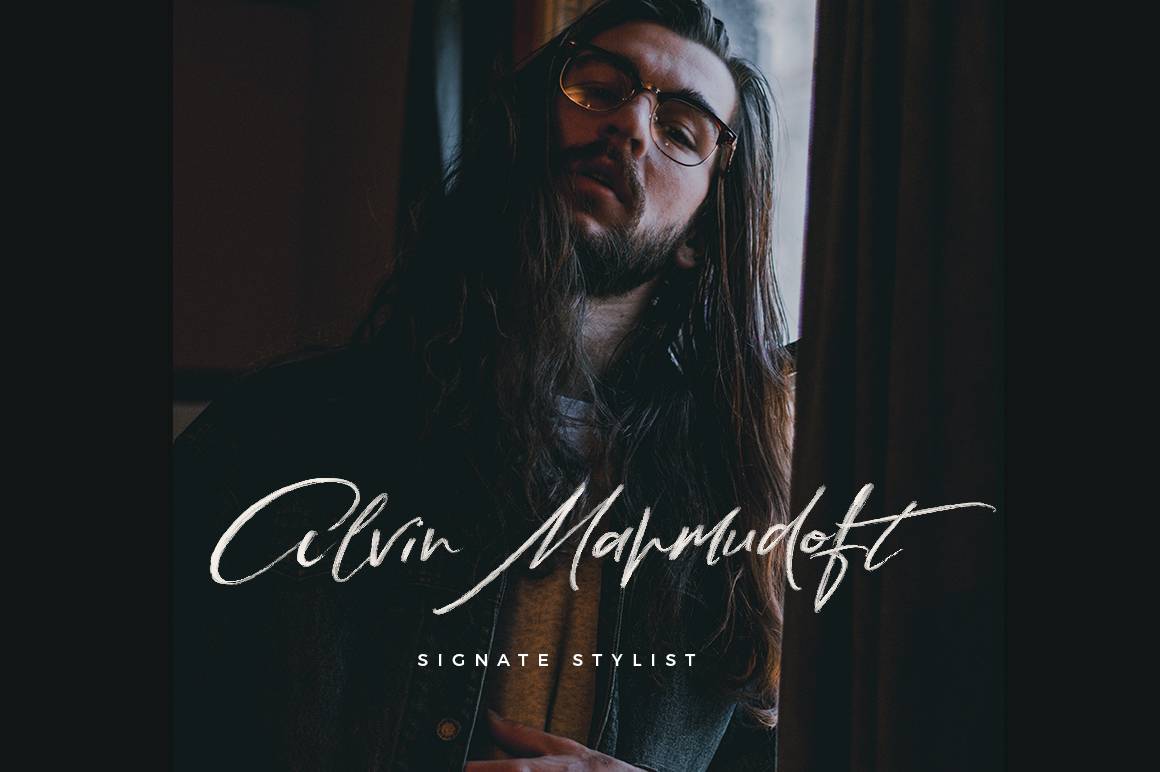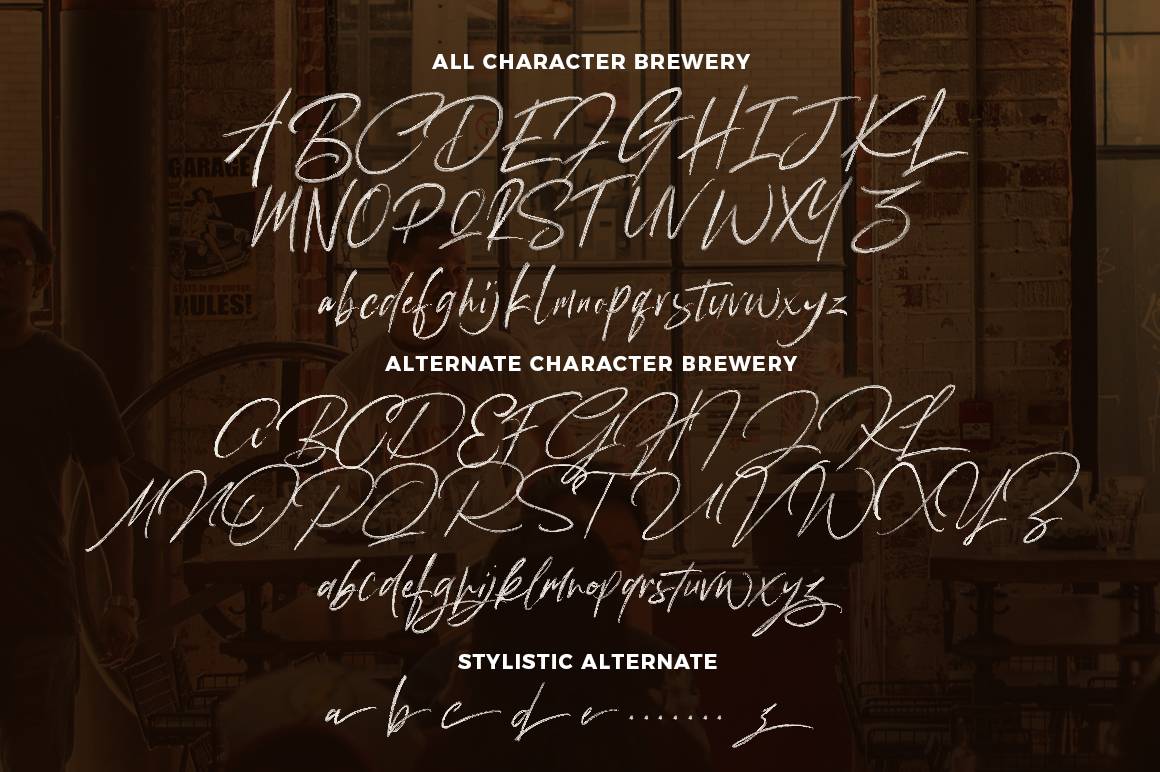
Brewery Font is a delicate and expressive brush script with a high-contrast, hand-painted style that captures a sense of elegance and artistic flair. Its flowing letterforms, fine strokes, and organic texture make it ideal for creative branding, invitations, and stylish headlines where a personal, handcrafted touch is desired. This font works best in designs that seek a sophisticated yet approachable vibe, lending character and individuality to logos, packaging, and editorial projects.
Brewery Font
About Brewery Font
| Font family | Brewery Font |
| Designer | Hendra Maulia |